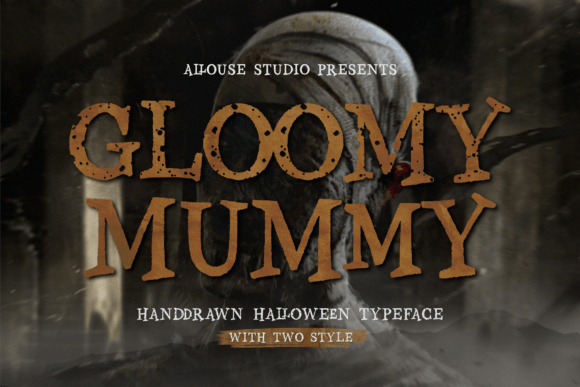
Gloomy Mummy - Creepy Halloween Font for Spooky Designs
Gloomy Mummy is a dramatic display font with a horror‑themed aesthetic — rough edges, bold strokes, and distressed detail that evoke a spooky, eerie atmosphere. Designed primarily for titles, headings, and decorative text, it adds a strong, atmospheric style ideal for Halloween, horror, or dark‑themed designs.
With its bold shapes and distressed “damaged” alternate version, Gloomy Mummy works especially well for posters, flyers, packaging, apparel, and other designs where making an eye‑catching, moody impact matters. It’s less about clean readability at small sizes and more about mood, moodiness, and dramatic presence.
- Halloween party posters, flyers, invitations, and event promos
- Spooky-themed apparel designs (t‑shirts, hoodies), mugs, stickers, merchandise
- Horror‑style social media graphics, YouTube banners, thumbnails, digital art
- Seasonal packaging, labels, gift tags, greeting cards — especially for Halloween or horror‑themed products
- Book covers, posters, wall art or home decor with gothic / horror vibe
- Cricut/Silhouette cut‑out decals, signage, or craft decorations (webfont conversion possible if permitted)
- At least two styles: Regular and a “Damaged/Distressed” version for a grungy look
- Full Latin character set: uppercase, lowercase, numbers, punctuation, and basic glyphs
- Strong, bold display presence — perfect when you want to grab attention and set a mood
- Distinct horror / gothic / Halloween vibe — ideal for themed designs, seasonal projects, or edgy branding
- Two styles (clean + distressed) give versatility depending on tone — clean horror look or grunge/damaged aesthetic
- Great for both digital (posters, social media, web graphics) and physical products (merch, packaging, prints, apparel)
Q: Does Gloomy Mummy include multiple styles or variants?
A: Yes — it includes at least a Regular style and a “Damaged/Distressed” version for a grungy or horror‑style effect. -
Q: Is Gloomy Mummy suitable for body text or long paragraphs?
A: No — because of its stylized, rough design and distressed details, it’s best used for headings, titles, logos, or display text, not long body text. -
| Feature | Gloomy Mummy | Generic Display Serif / Sans‑Serif | Generic Clean Display Font |
| Font Style | Bold, rough, horror‑themed, distressed display font | Clean serif or sans‑serif — smooth lines, polished strokes | Minimalist display font — clean lines without distress or effects |
| Best Use | Halloween posters, horror packaging, themed apparel, spooky social media, signage | Everyday branding, editorial, body or headline text, minimalist branding | Modern minimalist branding, clean posters, corporate graphics, digital ads |
| Variants Included | Regular + Distressed / Damaged style | Usually Regular ± Bold / Italic / variations | Regular / light / bold variations (depending on font) |
| Visual Vibe | Dark, eerie, distressed, grungy, horror / spooky | Polished, classic, professional, clean | Modern, minimal, sleek, neutral |